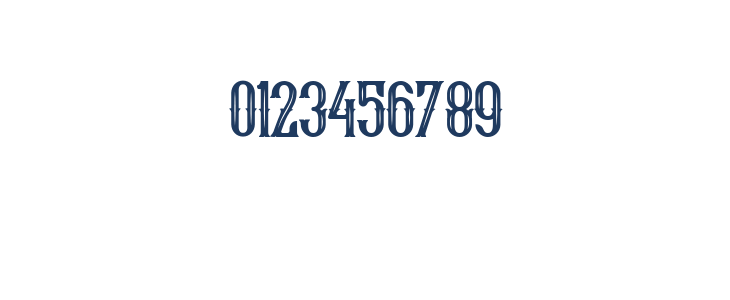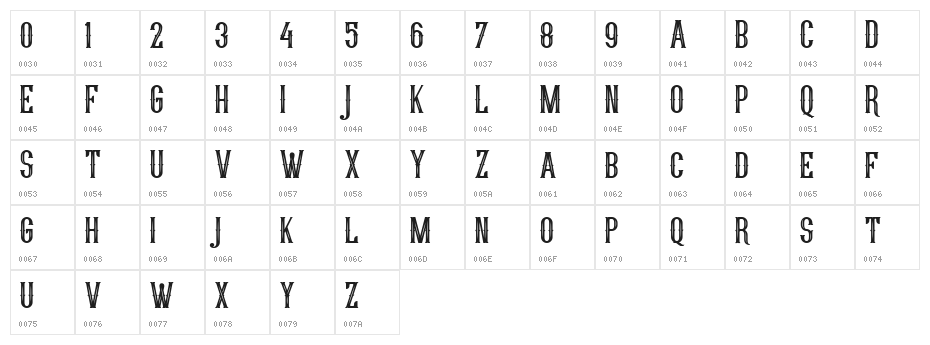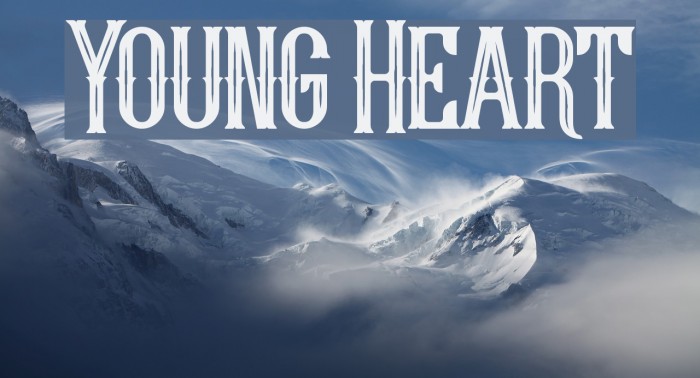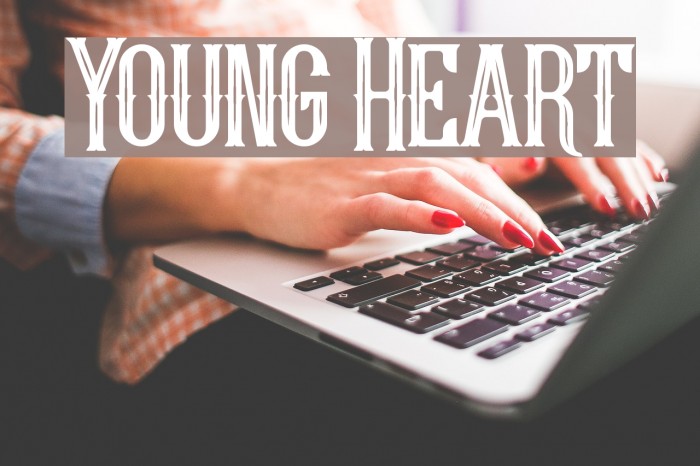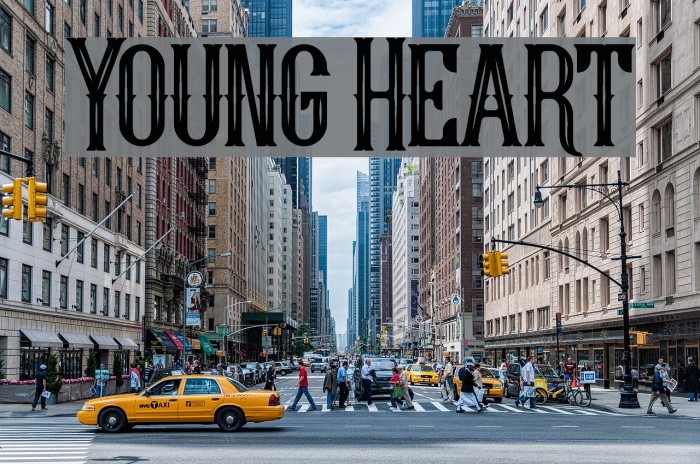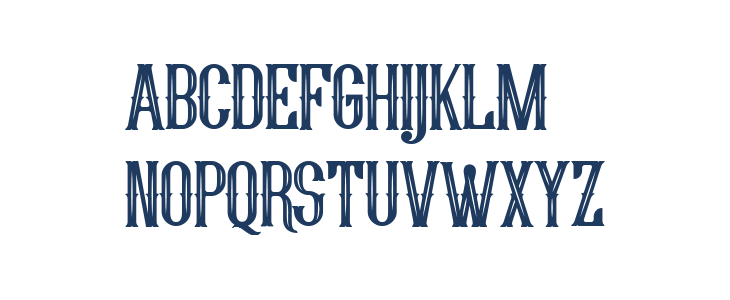
Young Heart Font
Young Heart Description
This font features a unique and bold design with a decorative flair. The characters are tall and narrow, with intricate detailing that gives them a vintage and ornate appearance. The uppercase letters are particularly striking, with elongated vertical strokes and subtle curves that add a touch of elegance. The numbers and special characters maintain the same stylistic elements, ensuring consistency across all glyphs. This font's distinct style makes it ideal for projects that require a strong visual impact.
| Proposed Projects | Ideal for posters, logos, branding, and any design that requires a vintage or decorative touch. |